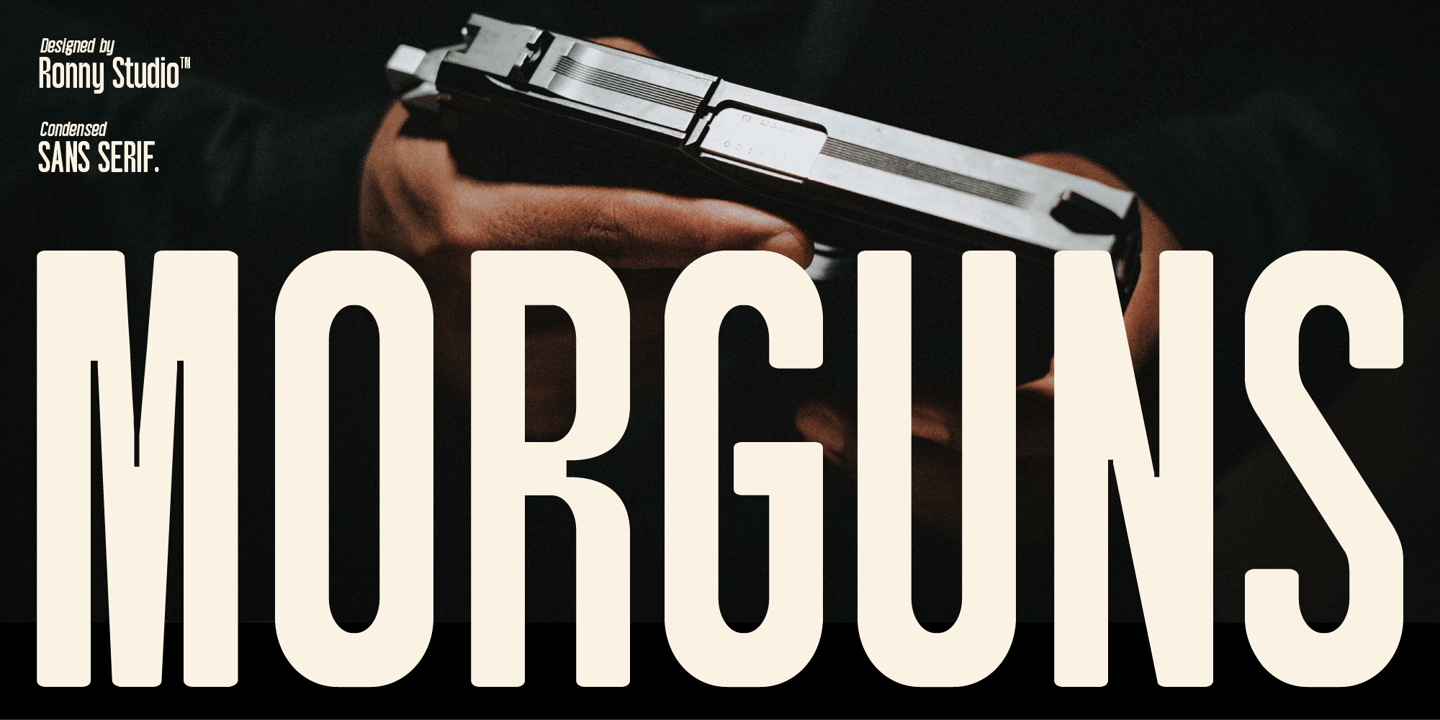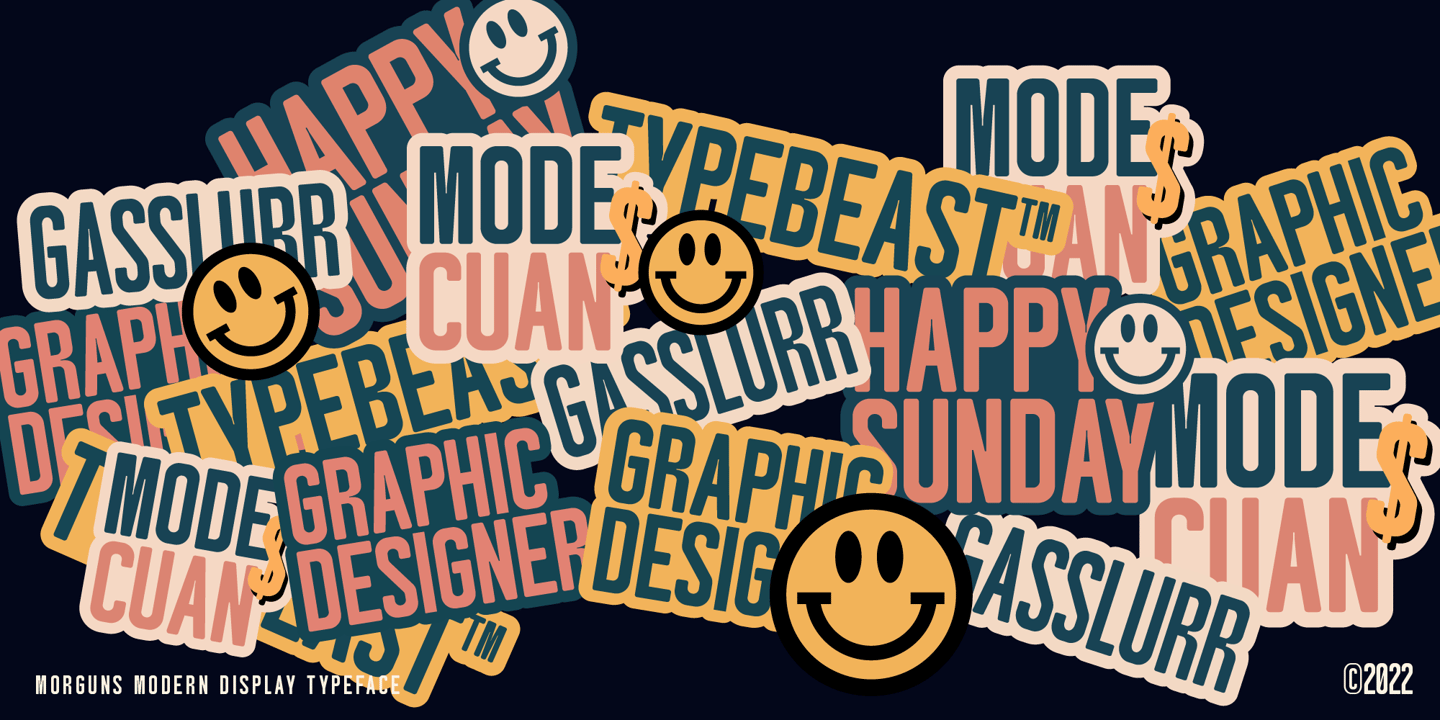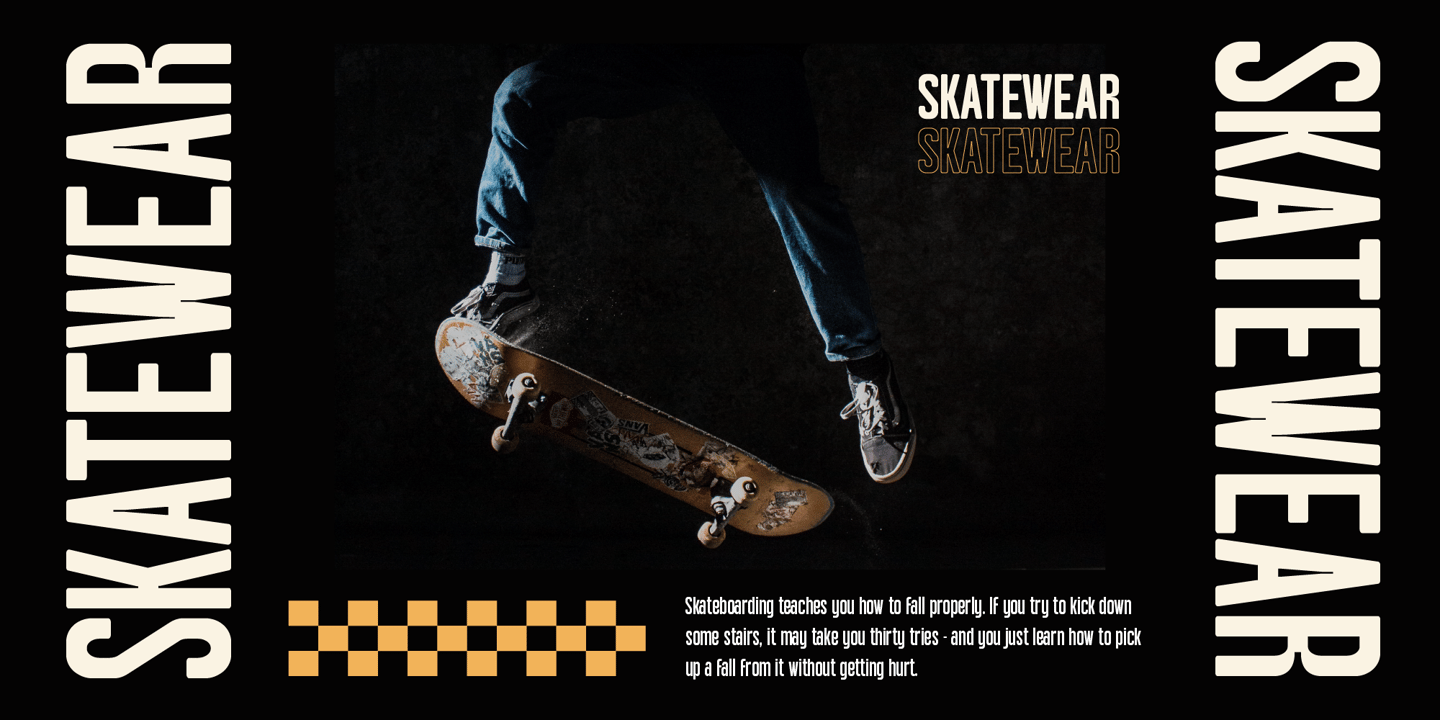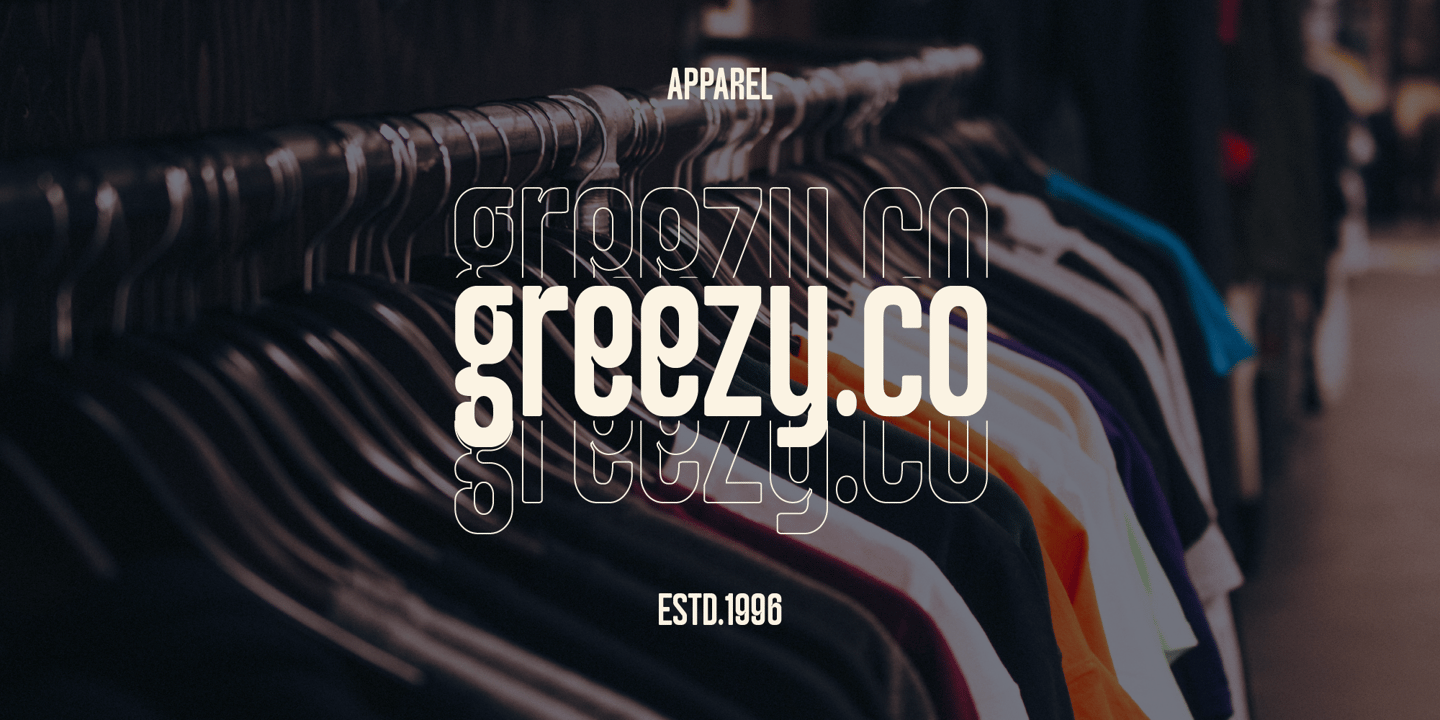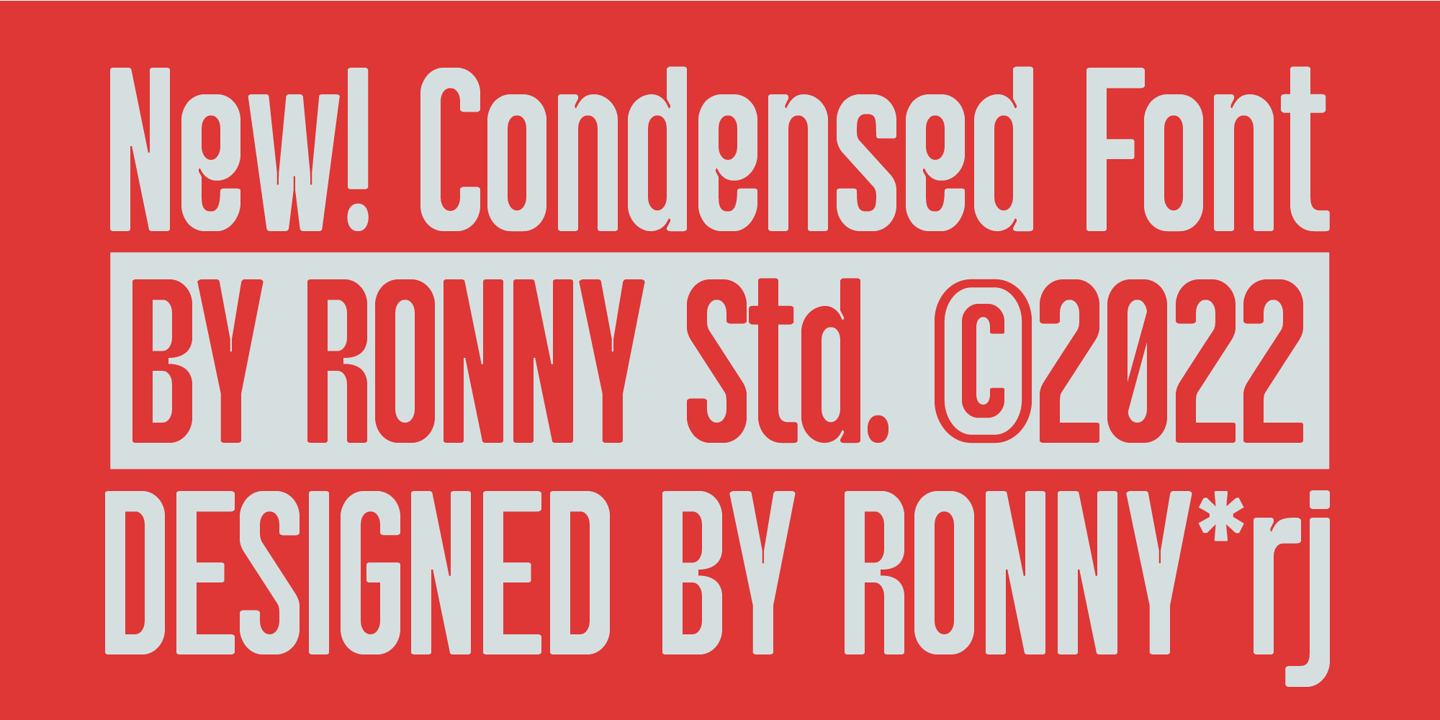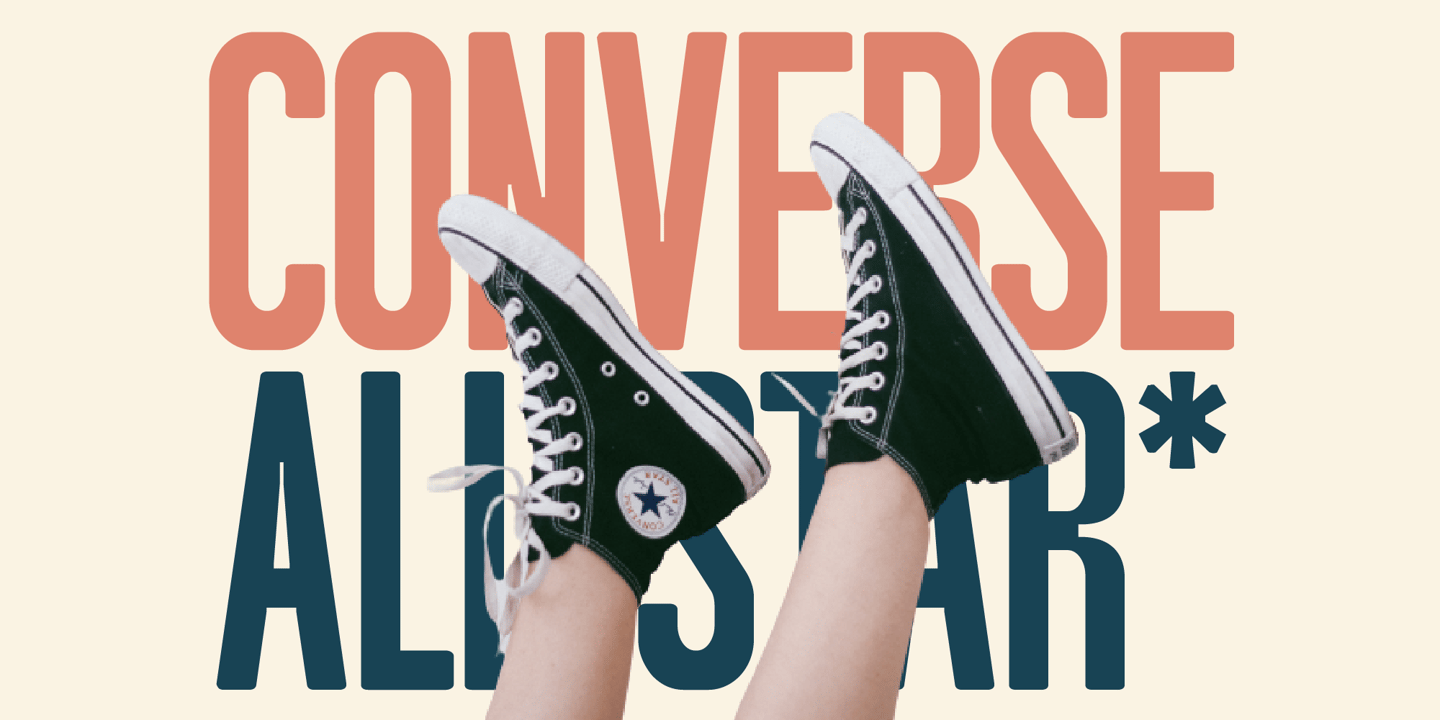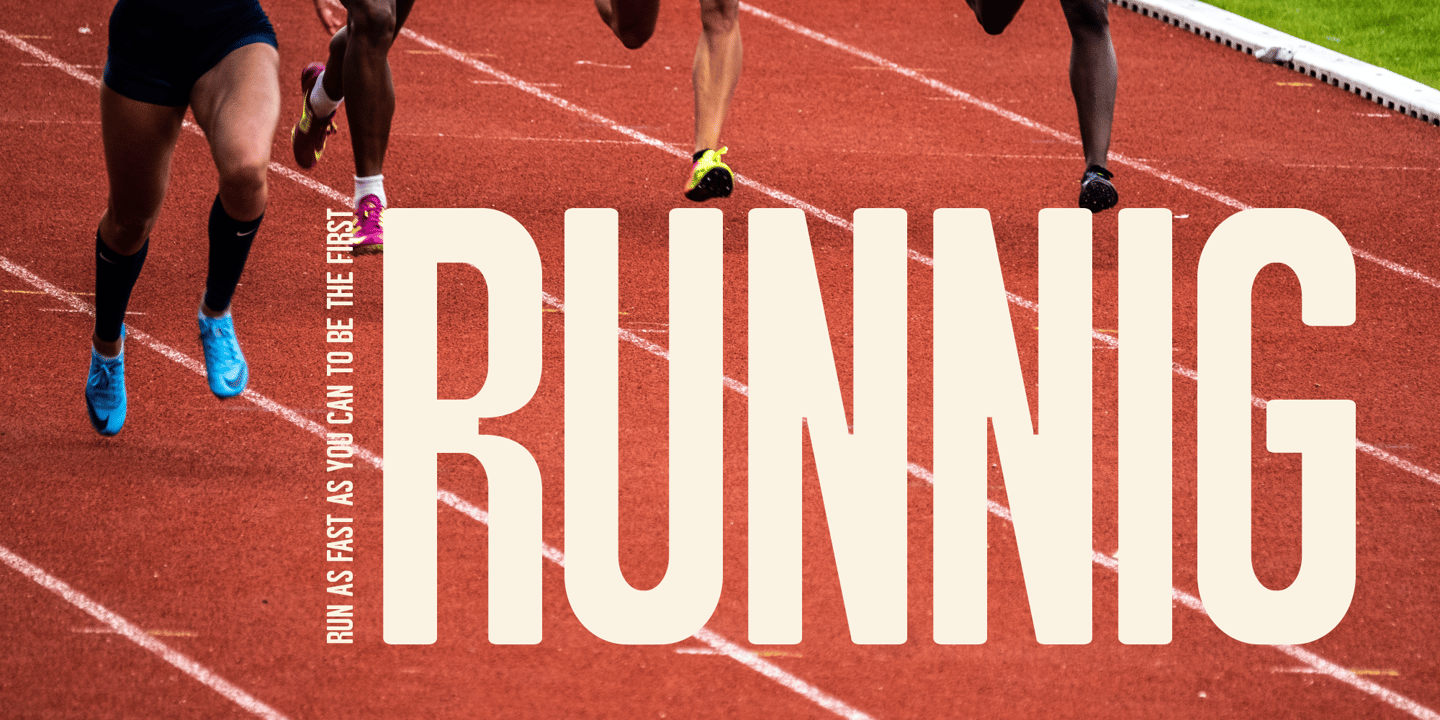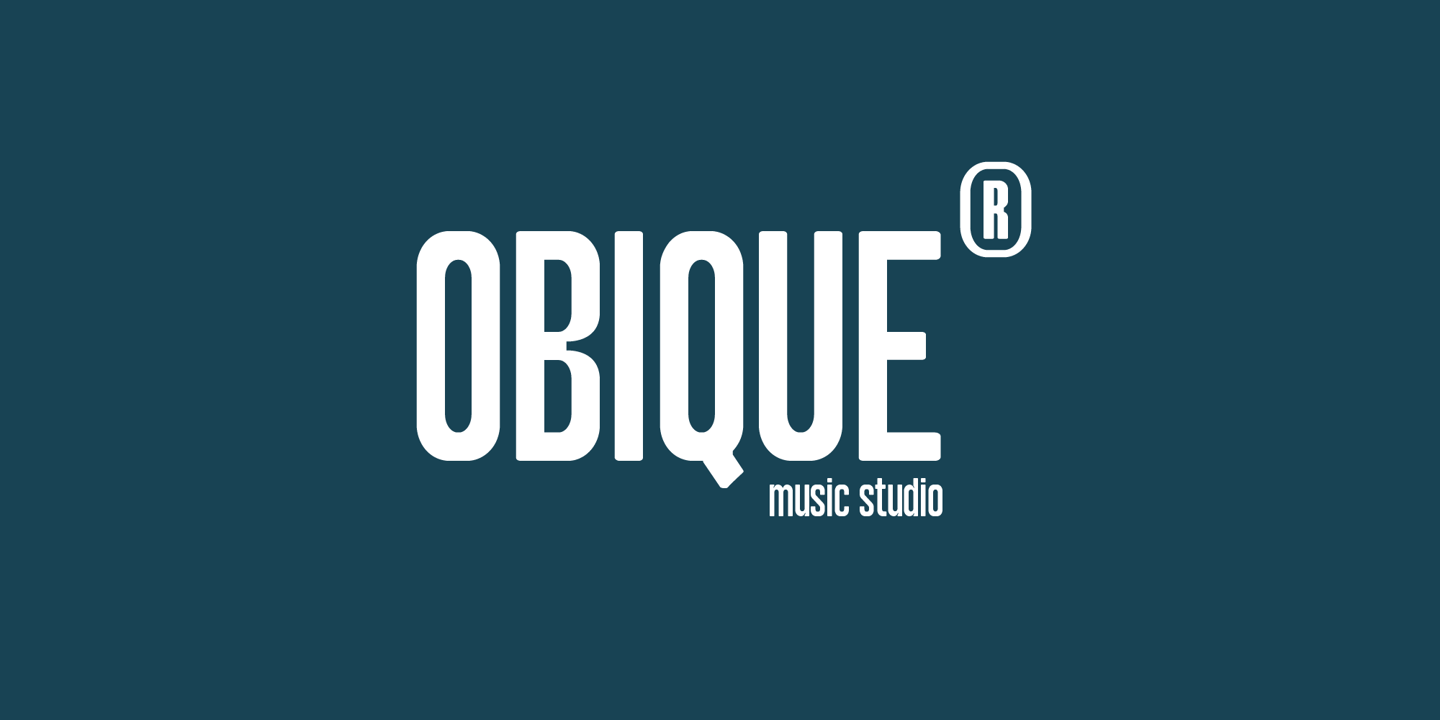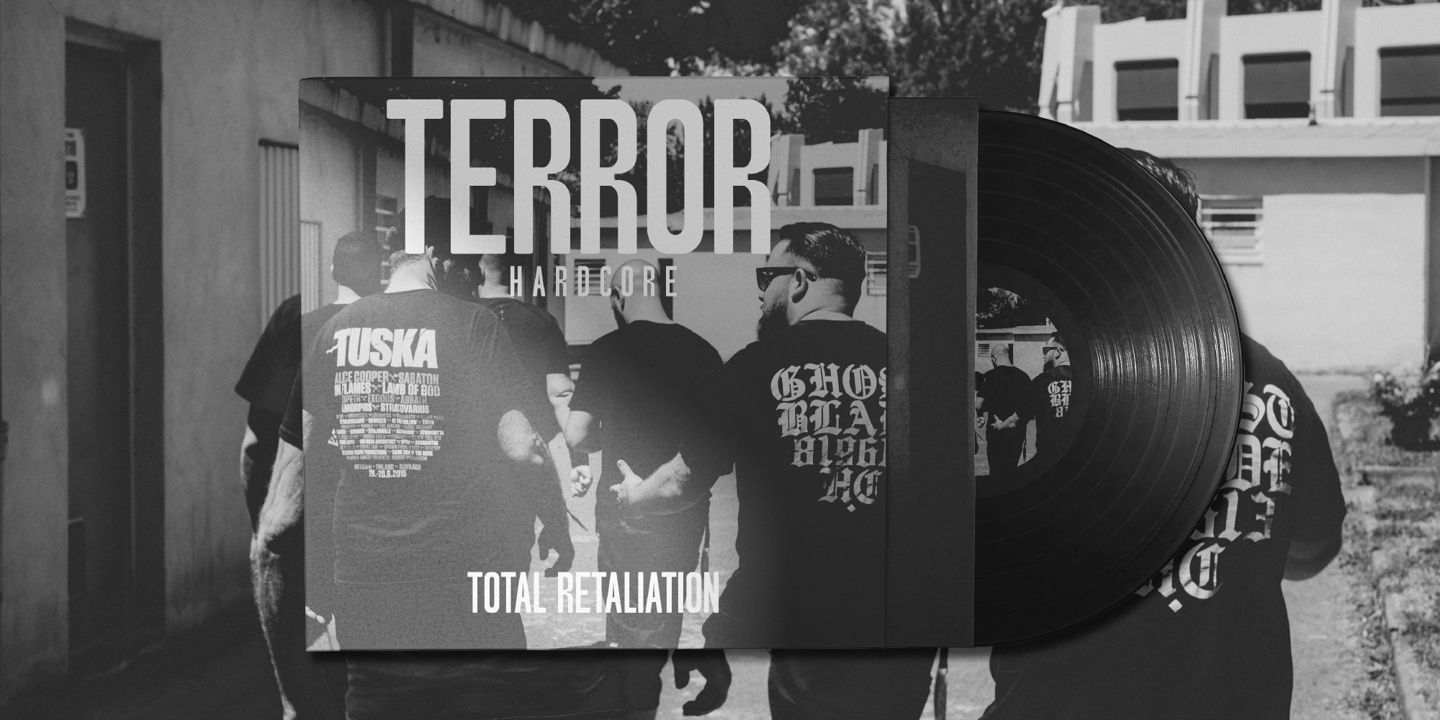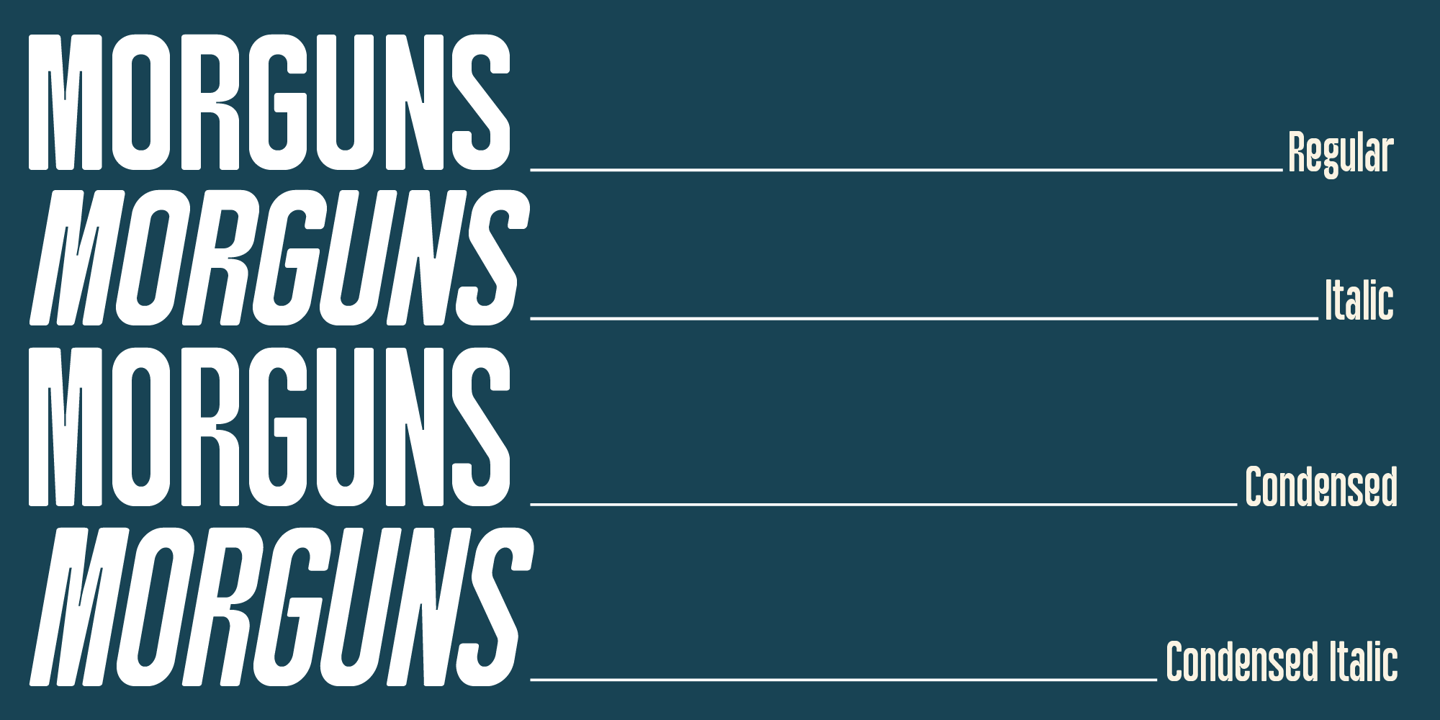
Morguns is a bold type of font that has a different character from other bold fonts, Morguns has a strong but soft character, with an elegant and fresh theme, supported by 4 choices of font types, Morguns is able to answer your current needs who are designing something great . Its weight excels in logos, posters, social media, magazine titles, clothing, large print formats - and anywhere you want to see it. Inspired by the design styles that are currently popular, let's make your imagination come true with Morguns.